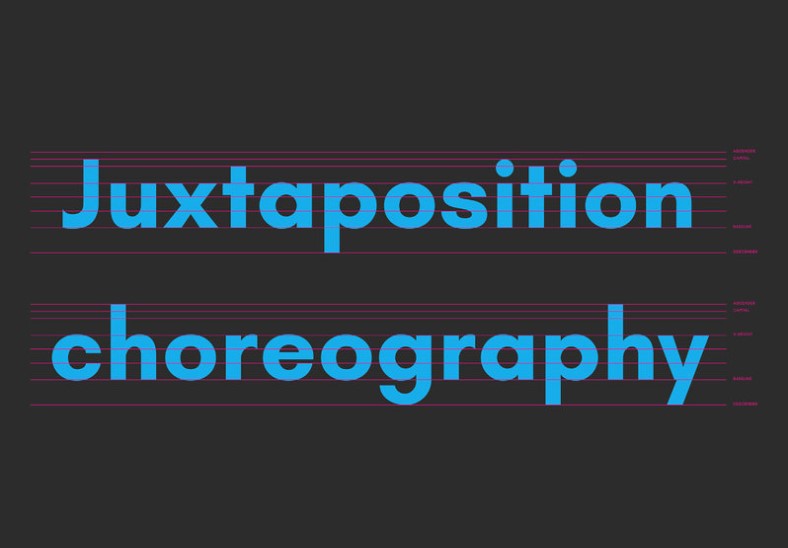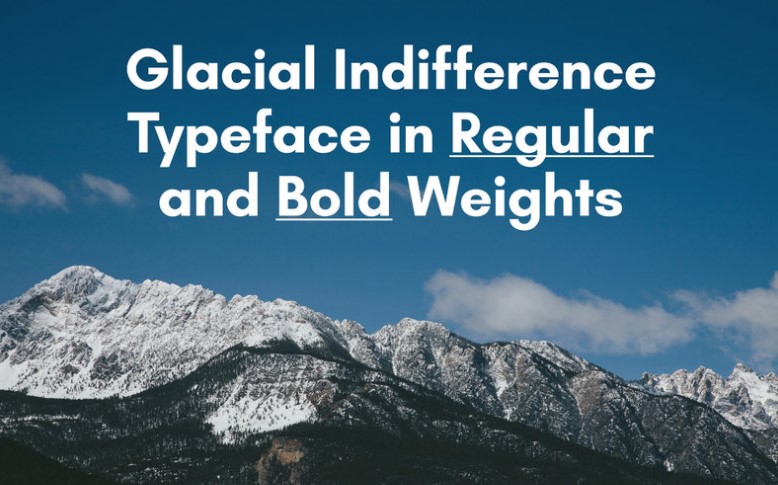
Glacial Indifference Font
Glacial Indifference Font is mostly utilized in the HTML tags. This typeface is famous for its Bold and italic function and also for its pairing function. The italic typeface that seems like thunderstorm font begins with a big part set supporting height of the EU communications, small caps, pictograms, and bolts. Along the lines of the only, its a ramification of specific government and they may be the use of it in venture one-of-a-kind from their format.